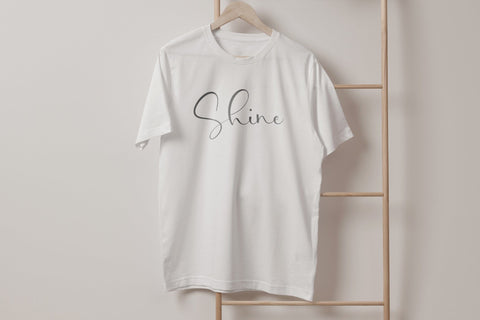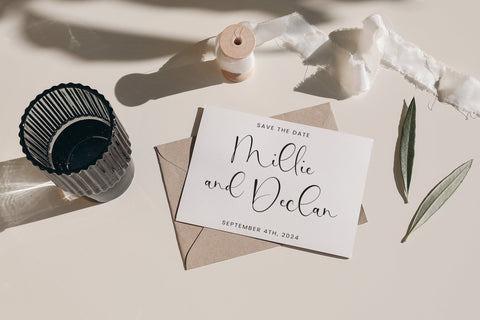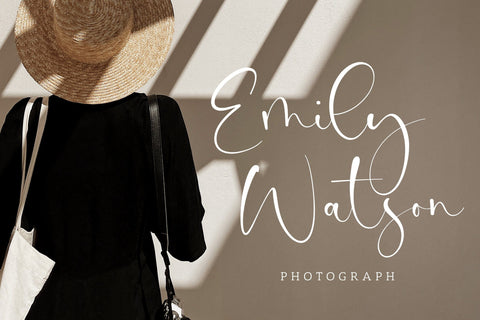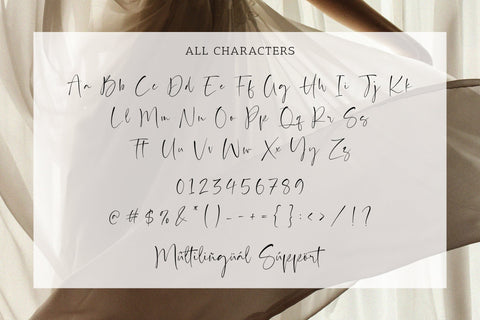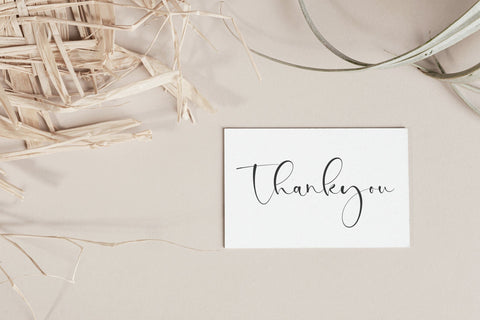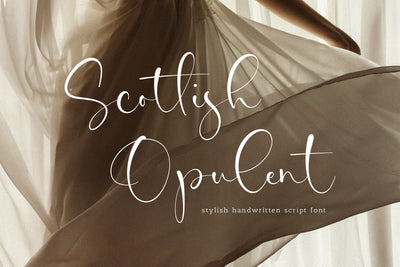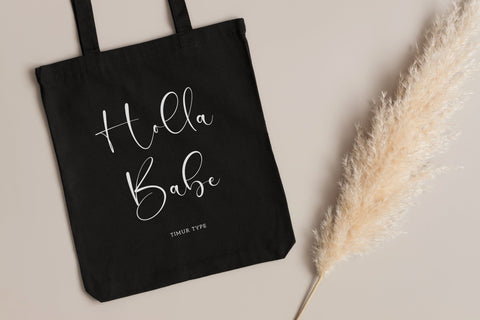
Scotlish Opulent- Handwritten Script font
Scotlish Opulent - Handwritten Script font , which was created with great care and specially created for you
Scotlish Opulent is perfect for product packaging, branding project, megazine, social media, wedding, or just used to express words above the background.
– multilingual support.